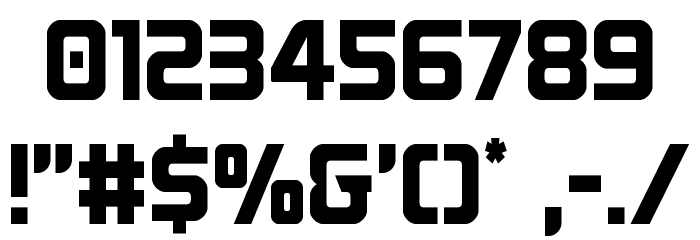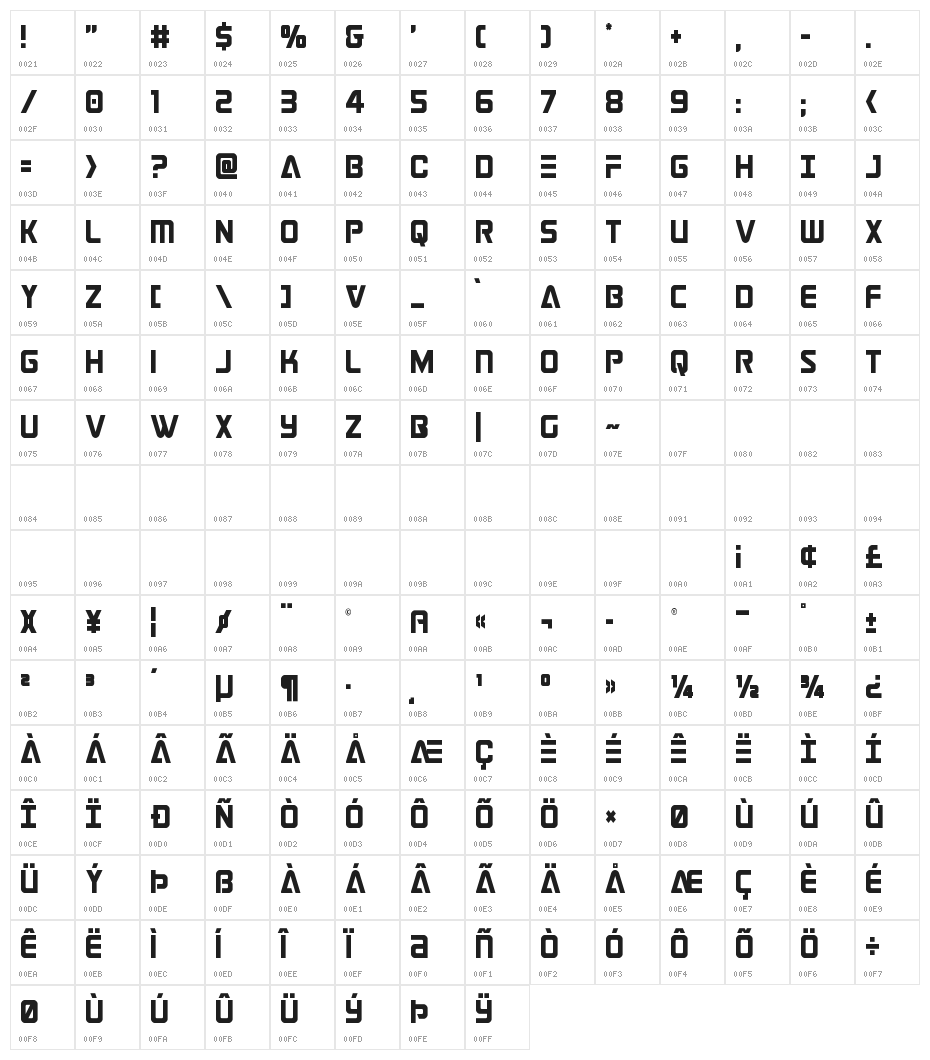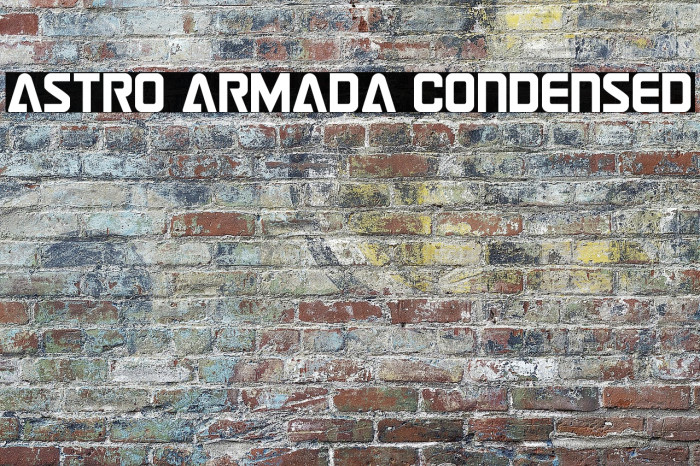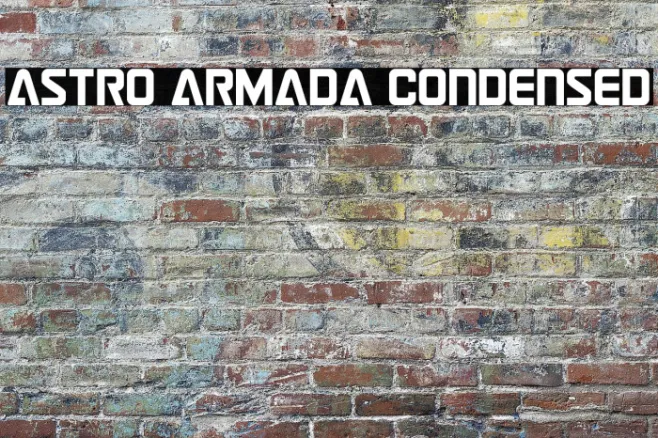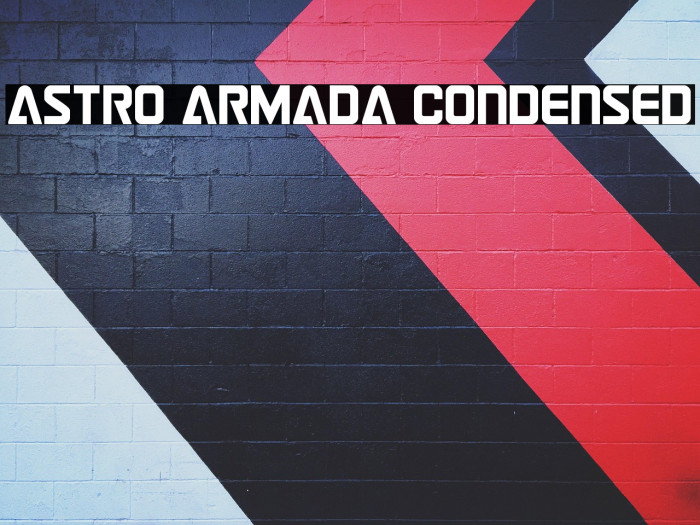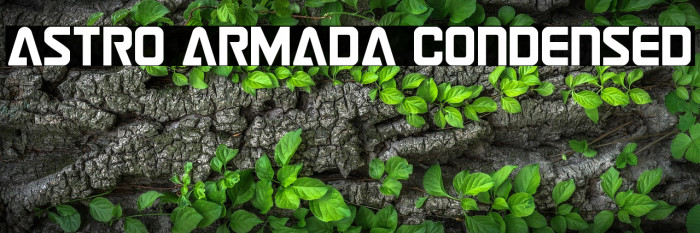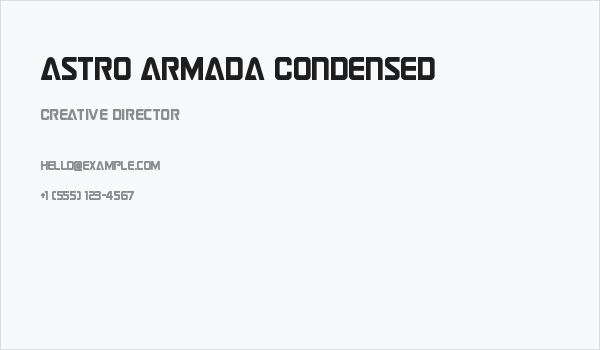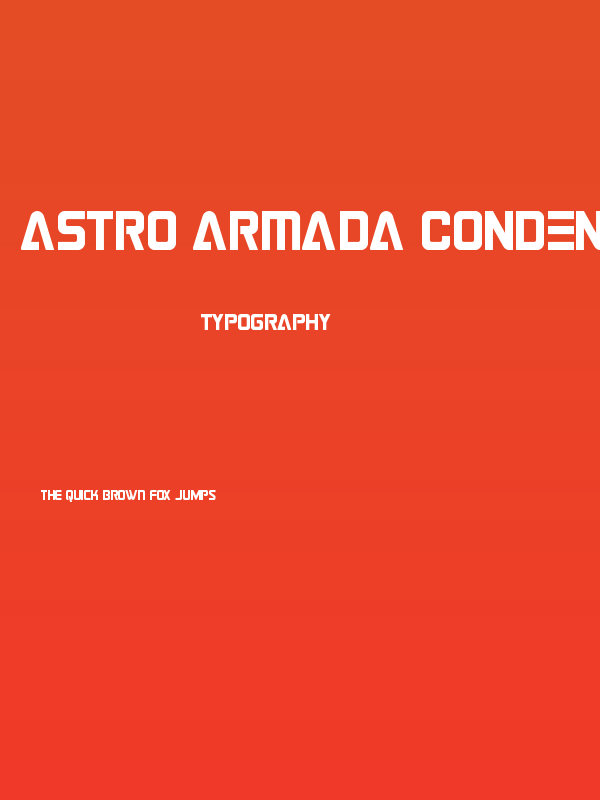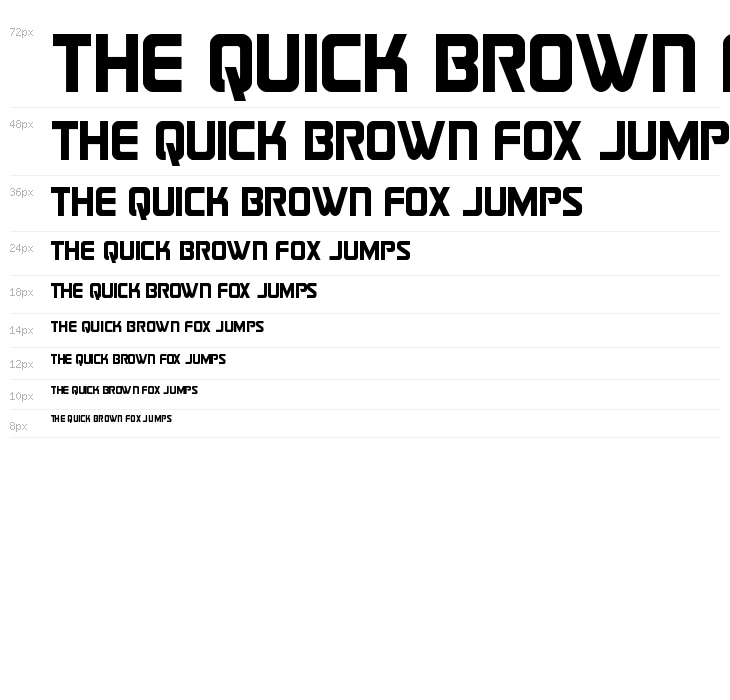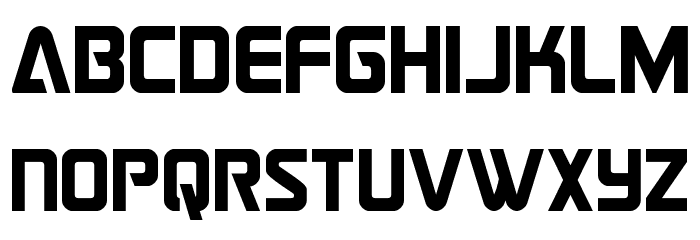
Astro Armada Condensed Font
Astro Armada Condensed Description
This font features a bold, futuristic design with a condensed structure, making it ideal for impactful visual statements. The characters are uniformly thick, with a geometric style that emphasizes straight lines and sharp angles. The uppercase and lowercase letters maintain a consistent height, contributing to a cohesive and streamlined appearance. The numerals and special characters are designed to match the overall aesthetic, ensuring uniformity across all text elements. This font's modern and sleek design makes it suitable for projects that require a strong visual presence.
Proposed ProjectsIdeal for sci-fi themed designs, technology branding, video game interfaces, and modern posters.